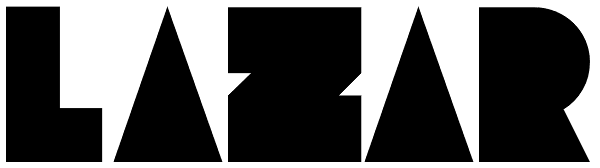
Lazar
Lazar takes its inspiration from the designs of early Russian designers like El Lissitzky. Designed initially as a custom font for a trainers collecting website it was expanded into a full family including a stencil, rounded and distressed styles...
Lazar
Lazar Distressed
Lazar Stencil
Lazar Rounded